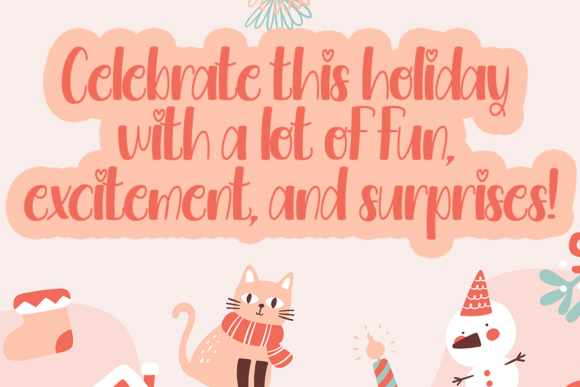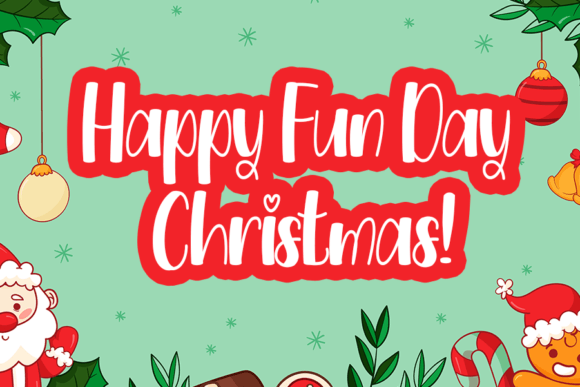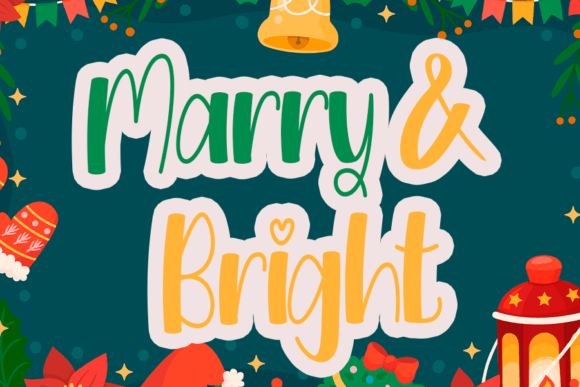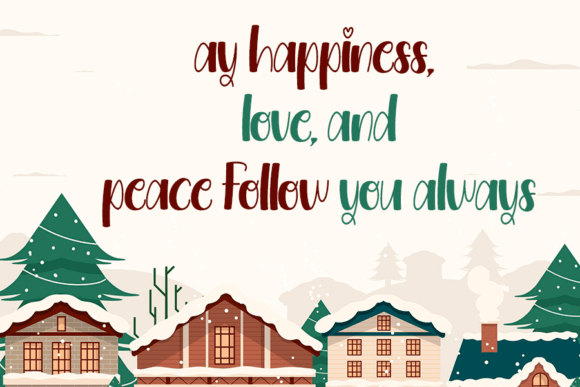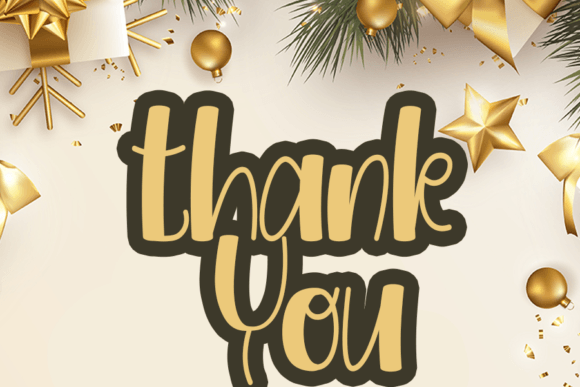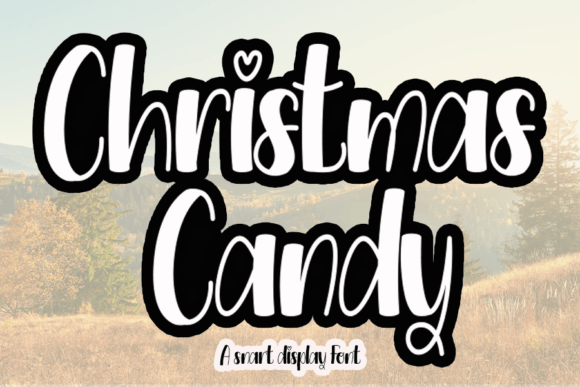
Introducing Christmas Candy Font: A Sweet Addition to Your Design Collection
Are you looking for a font that can add a touch of fun and playfulness to your designs? Look no further than Christmas Candy Font! This cool, simple, and playful display font is incredibly versatile and can elevate a wide range of designs to new heights. In this article, we’ll take a closer look at Christmas Candy Font and explore how it can bring your creative ideas to life.
What is Christmas Candy Font?
Christmas Candy Font is a display font that is perfect for designers and crafters who want to add a touch of whimsy and fun to their projects. With its playful and simple design, this font is sure to capture the attention of your audience and leave a lasting impression. Whether you’re working on a holiday-themed project or just want to add some personality to your design, Christmas Candy Font is a great choice.
Key Features of Christmas Candy Font
So, what makes Christmas Candy Font so special? Here are just a few of its key features:
- Playful Design: Christmas Candy Font has a fun and playful design that’s perfect for holiday-themed projects or any design that needs a touch of whimsy.
- Simple and Easy to Read: Despite its playful design, Christmas Candy Font is simple and easy to read, making it perfect for use in a wide range of designs.
- Incredibly Versatile: Christmas Candy Font can be used in a wide range of designs, from holiday-themed projects to birthday cards and more.
- High-Quality Design: Christmas Candy Font is a high-quality design that’s perfect for use in both personal and commercial projects.
How to Use Christmas Candy Font
Christmas Candy Font is incredibly easy to use and can be incorporated into a wide range of designs. Here are just a few ideas to get you started:
- Holiday-Themed Projects: Christmas Candy Font is perfect for use in holiday-themed projects, such as Christmas cards, holiday gift tags, and more.
- Birthday Cards and Invitations: Add a touch of fun and whimsy to birthday cards and invitations with Christmas Candy Font.
- Crafting Projects: Christmas Candy Font is perfect for use in a wide range of crafting projects, such as scrapbooking, DIY signs, and more.
- Digital Designs: Christmas Candy Font can also be used in digital designs, such as social media graphics, blog posts, and more.
Benefits of Using Christmas Candy Font
So, why should you choose Christmas Candy Font for your next design project? Here are just a few benefits of using this fun and playful font:
- Adds a Touch of Whimsy: Christmas Candy Font adds a touch of whimsy and fun to any design, making it perfect for projects that need a little extra personality.
- Increases Engagement: The playful design of Christmas Candy Font is sure to capture the attention of your audience and increase engagement.
- Versatile: Christmas Candy Font can be used in a wide range of designs, making it a great addition to any design collection.
- Easy to Read: Despite its playful design, Christmas Candy Font is easy to read, making it perfect for use in a wide range of designs.
Christmas Candy Font is a fun and playful display font that’s perfect for designers and crafters who want to add a touch of whimsy and fun to their projects. With its simple and easy-to-read design, this font is incredibly versatile and can be used in a wide range of designs. Whether you’re working on a holiday-themed project or just want to add some personality to your design, Christmas Candy Font is a great choice. So why wait? Add Christmas Candy Font to your favorite creative ideas and watch as they come alive!